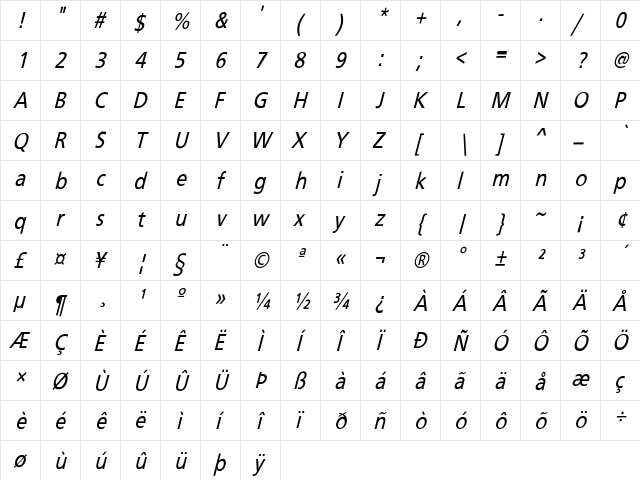
FrutigerCndObl-Normal Regular
Design Context for FrutigerCndObl-Normal Typeface
FrutigerCndObl-Normal is a composed and adaptable typeface that performs quietly and consistently across a wide range of design contexts.